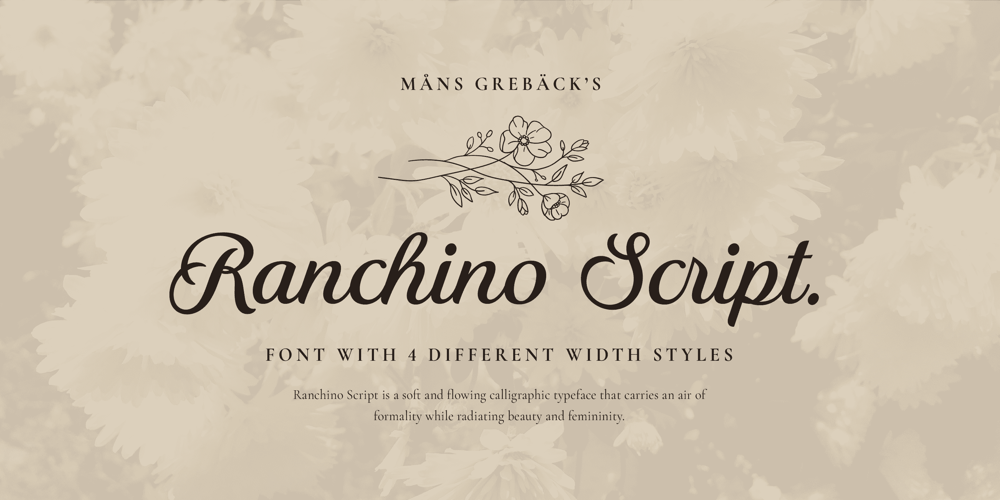
Ranchino Script Font Family was designed by Måns Grebäck and published by Mans Greback. Ranchino Script contains 10 styles and family package options. Ranchino Script is a soft and flowing calligraphic typeface that carries an air of formality while radiating beauty and femininity. It’s a font that truly embodies the essence of lovely, genuine, and high-quality design, making it perfect for projects that require a touch of delicacy and a strong sense of authenticity. Ranchino Script’s character is one of care, precision, and the timeless beauty of calligraphy. The font is built with advanced OpenType functionality and guaranteed top-notch quality, containing stylistic and contextual alternates, ligatures, and more automatic and manual features; all to give you full control and customizability. It has extensive lingual support, covering all Latin-based languages, from North Europa to South Africa, from America to South-East Asia. It contains all characters and symbols you’ll ever need, including all punctuation and numbers. Designed by Mans Greback, Ranchino Script reflects his passion for creating fonts that convey emotion and character. With this font, Mans continues to demonstrate his exceptional ability to blend the art of calligraphy with the demands of modern design, offering a typeface that is not only beautiful but also of the highest quality and functionality.